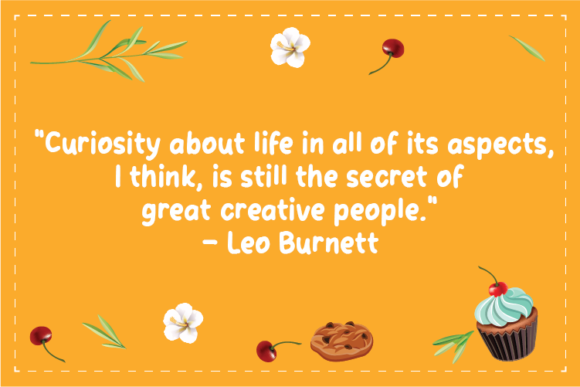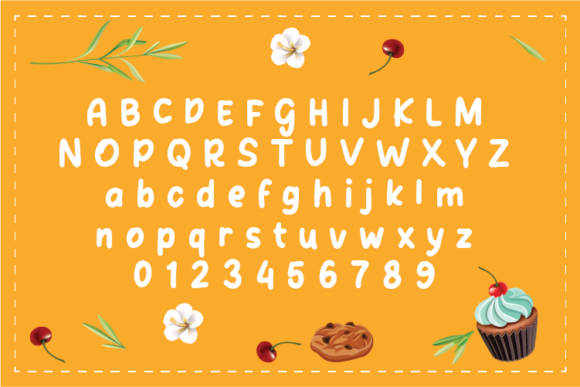
Vanilla White Font
db-ku.com - Script & Handwritten -- Vanilla White is a natural handwritten font without changing a single node in each character’s indentation, this makes this font very interesting and unique. Perfect for quotes, notes, tees, and any product design.